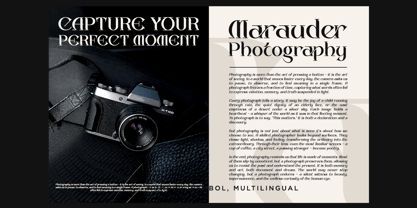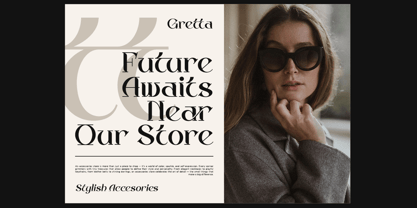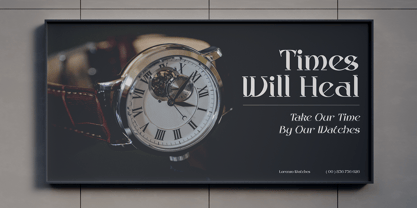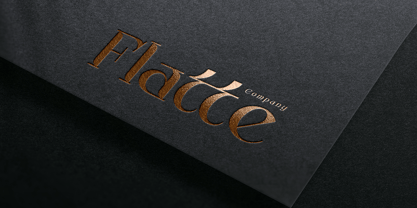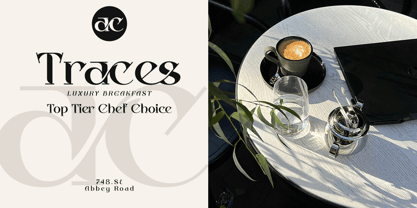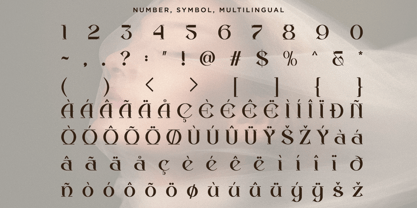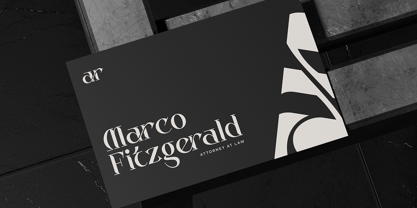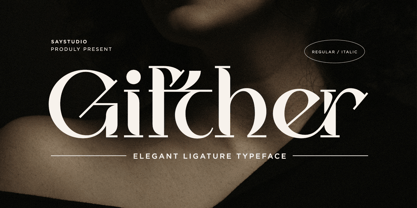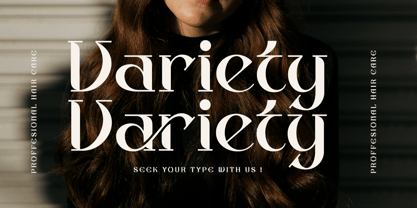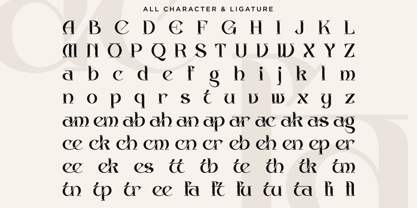
Gifther
by Sayfont
The Gifther Font Family was designed by Nur Rohman and published by Sayfont. Gifther contains 2 styles and family package options. More about this family
Gifther is a modern and elegant serif typeface that showcases distinctive alternates and full multilingual support, enhanced with impeccable kerning. This font is perfect for crafting sophisticated and luxurious logos, refined editorial layouts, women’s magazines, fashion identities, beauty branding, contemporary advertisements, invitations, art quotes, home décor, book covers, special occasions, tote bags, and more. Whats Included : - Gifther regular - Gifther italic - Stylish Ligature - Multilingual Support - Number, and Symbol Thanks, Have a nice day Sayfont
Designers: Nur Rohman
Foundry: Sayfont